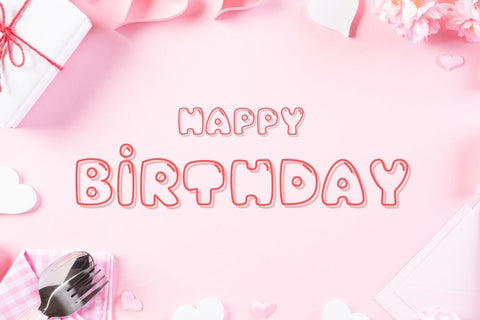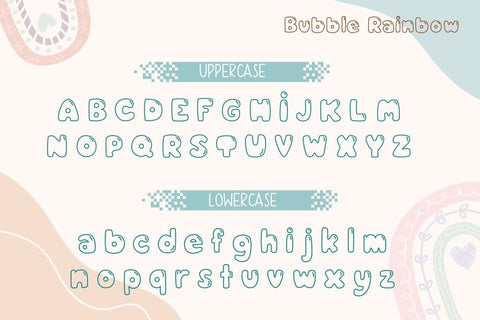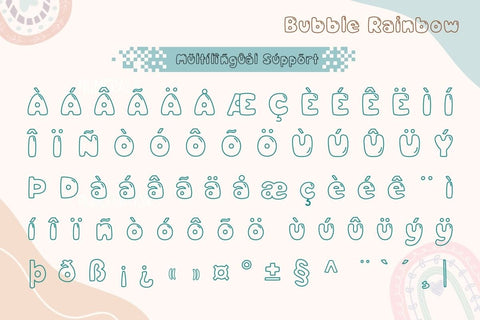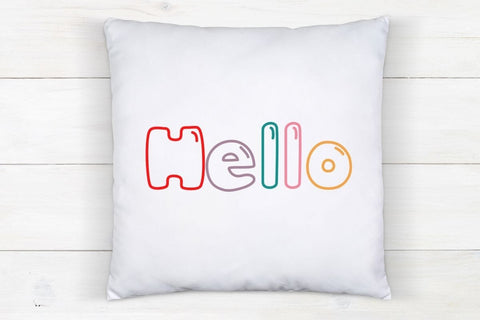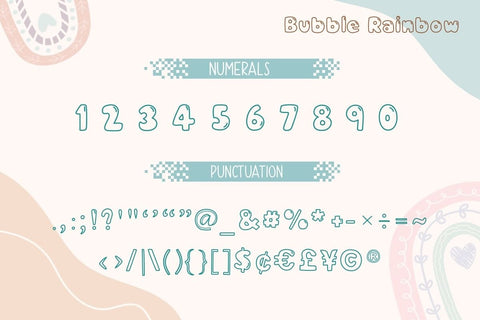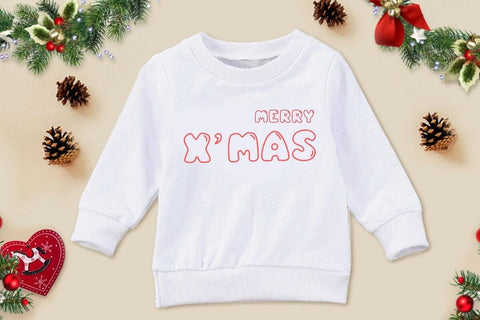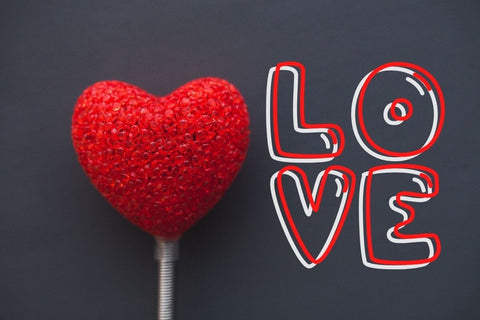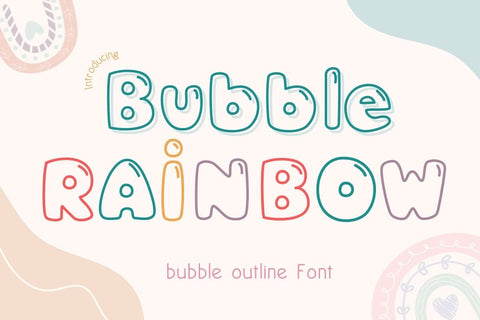
Bubble Rainbow - Outline Font
Bubble Rainbow is a cute display font. This font is puffy, and round like a bubble. Bubble Rainbow Font, when used in the design, makes the design look cute and exotic. You can use it to create Valentine's card, wedding invitations, beautiful stationary art, social media posts, and much more!